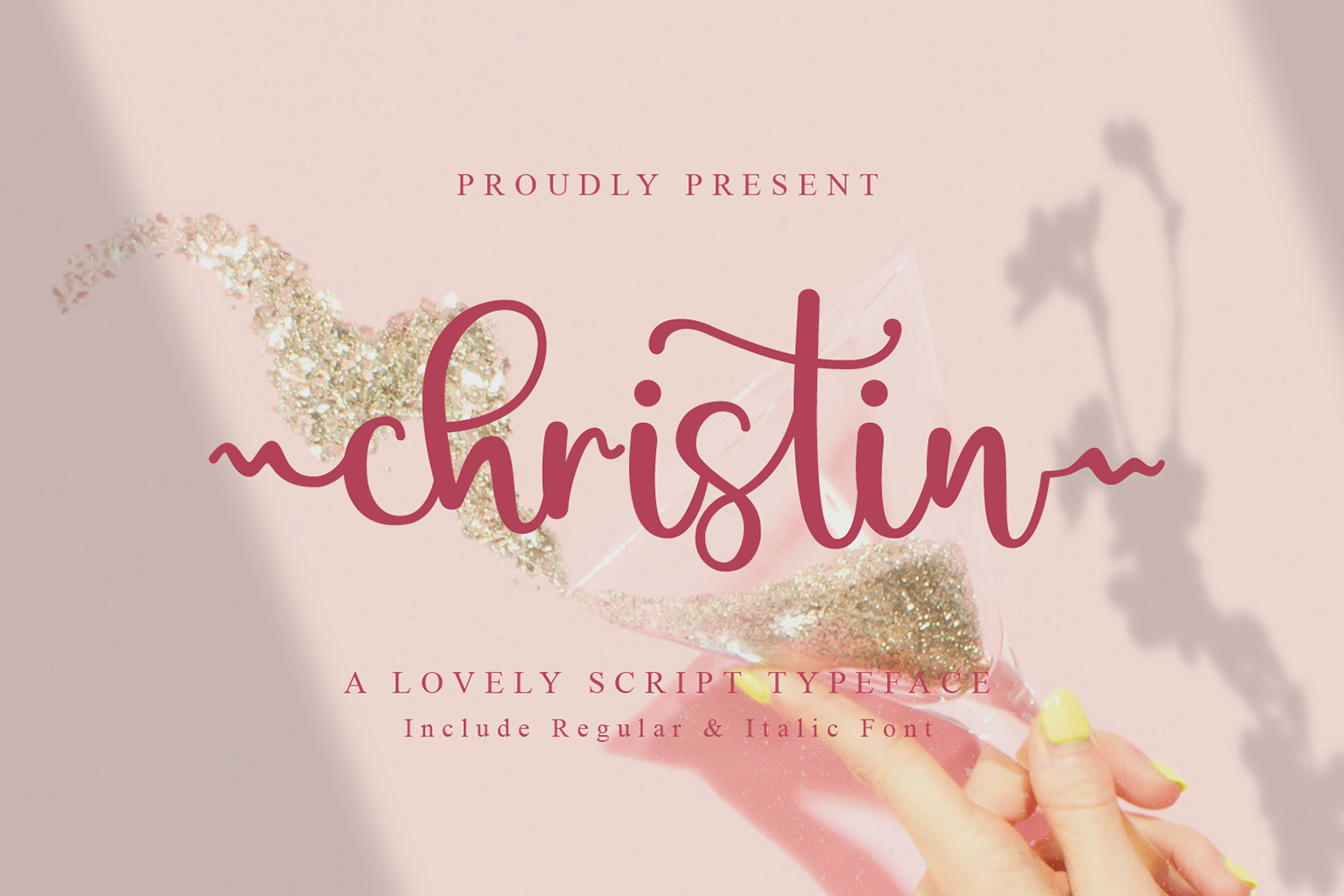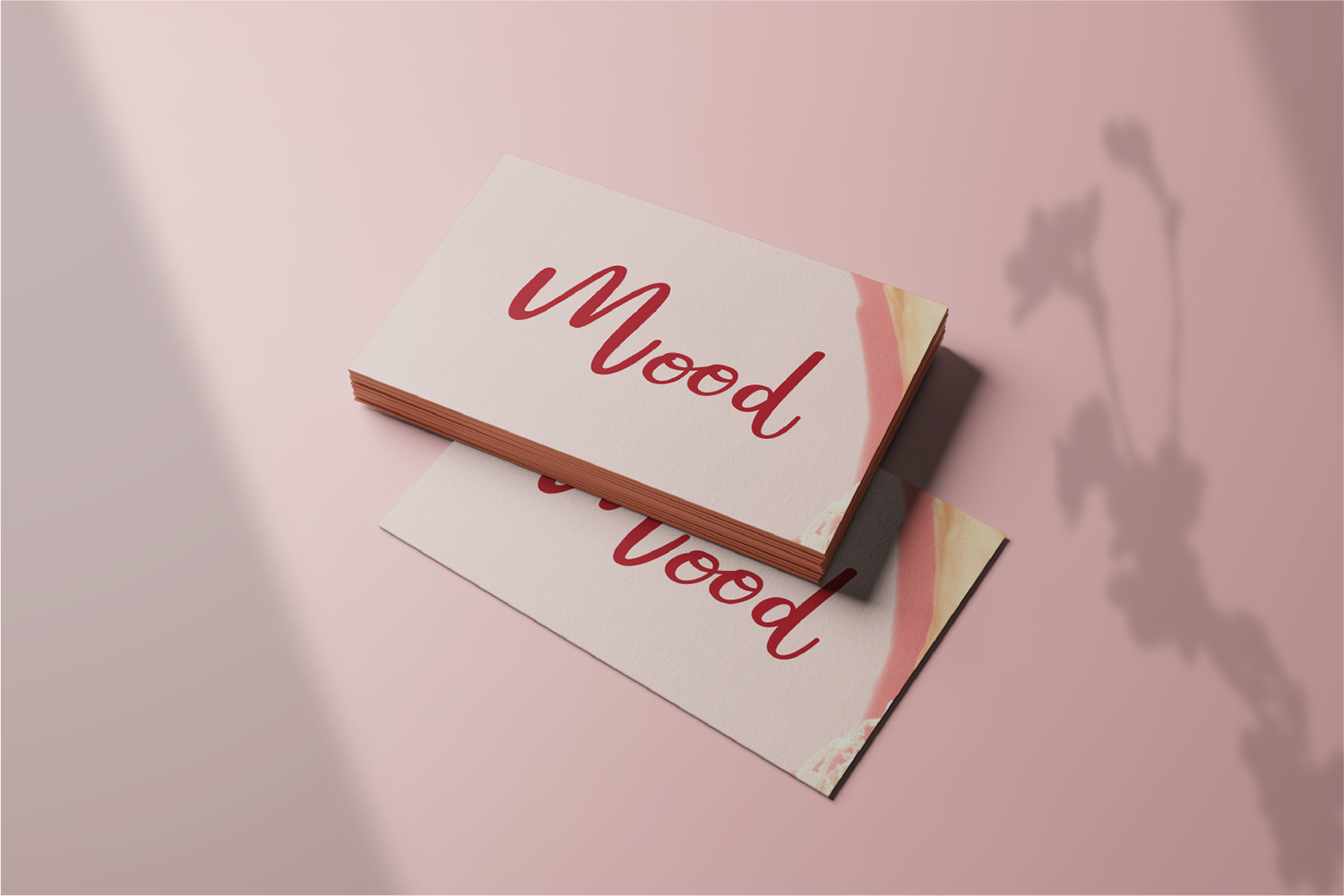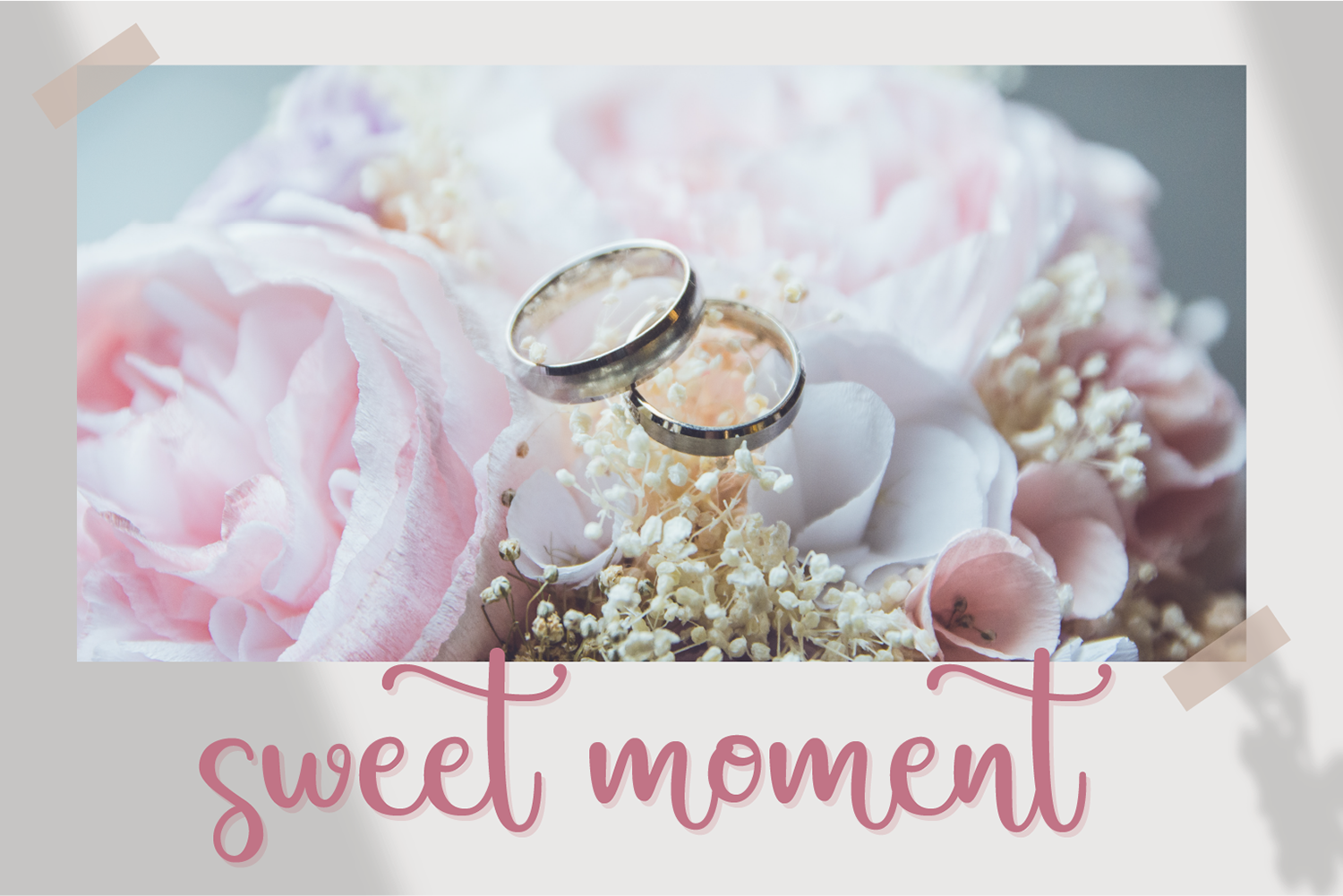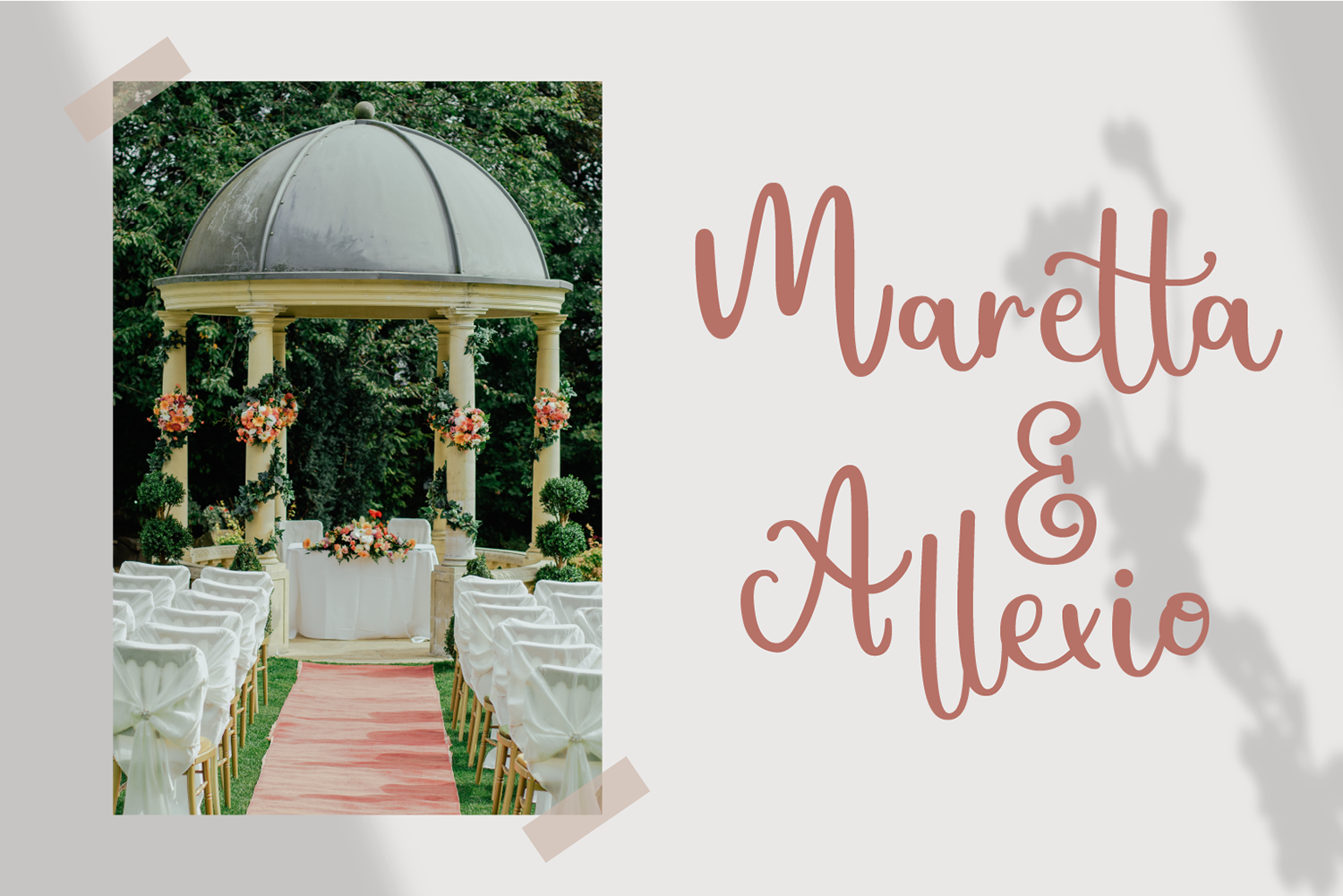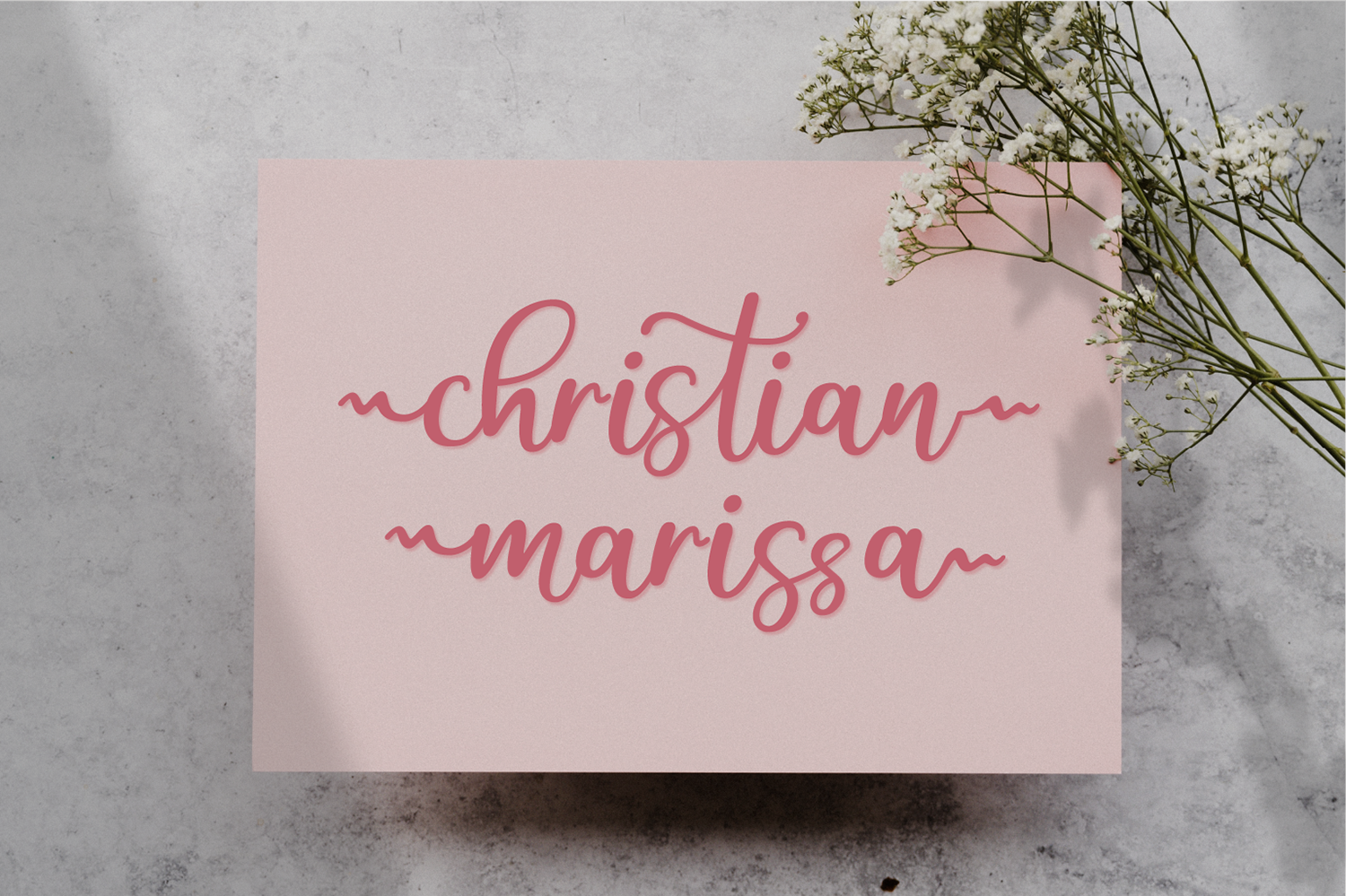
Christin Free Font
Christin Free Font is a modern script font that feels very elegant that features a modern style among other fonts. This font is very well suited for various projects that require a curly handwritten font. Use this font to create memorable romantic posters, wedding invitations, greeting cards, branding, flyers, t-shirt and pillow prints, and more. If you like it don’t forget to check out the full version.
Author: Dewi Purwaningrum